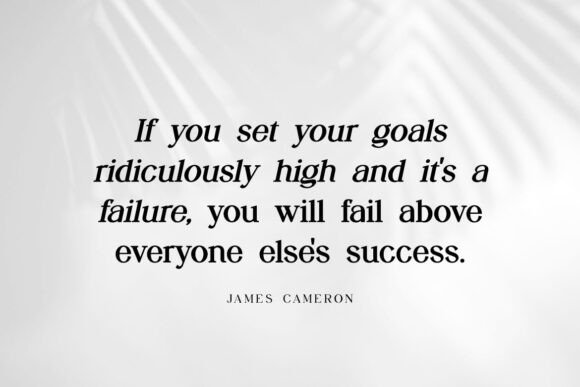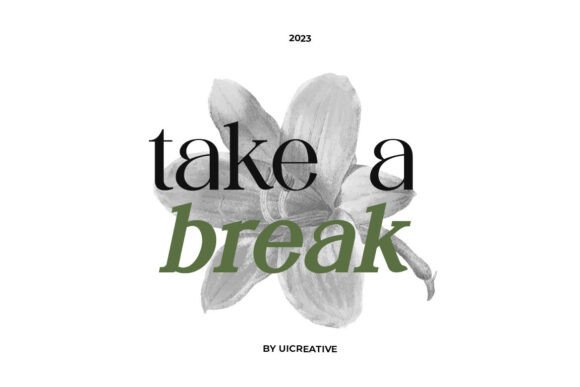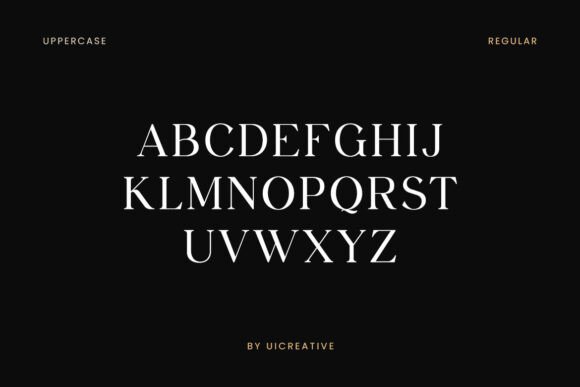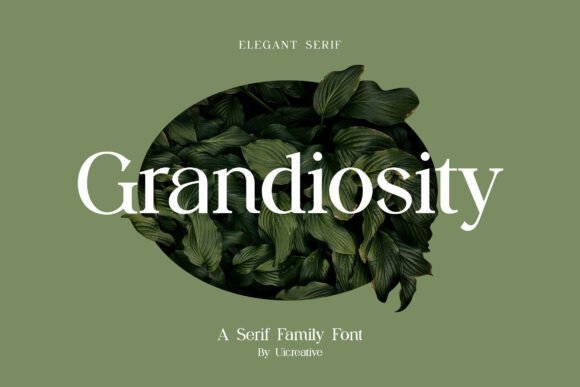
Introduction to Grandiosity Font
Grandiosity Elegant Serif Family Font.
The modern display font feels beautiful classy, elegant, and stylish This font is ideally suited for a wide variety of projects, such as signature, stationery, logo, wedding, typography quotes, magazine or book covers, website headers, branding, and more.